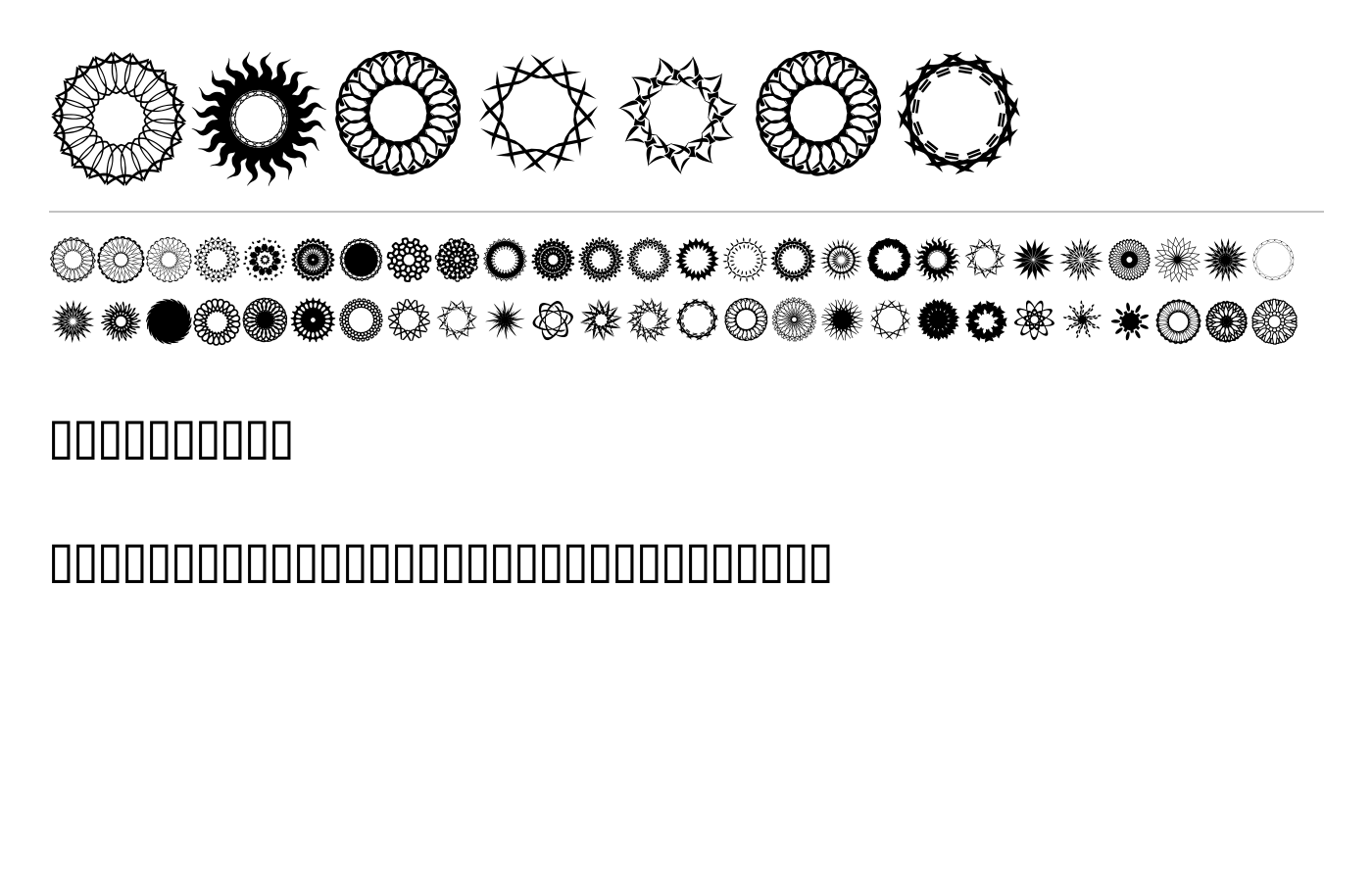
Asorion is a decorative symbol font featuring a diverse collection of intricate, circular ornamental designs resembling suns or mandalas. Its detailed and symmetrical patterns make it perfect for creative projects that need a touch of elegance and sophistication, such as logos, invitations, or branding that seeks a unique and artistic flair. This font works best in larger sizes where its complex shapes can be fully appreciated.
Asorion Font
About Asorion Font